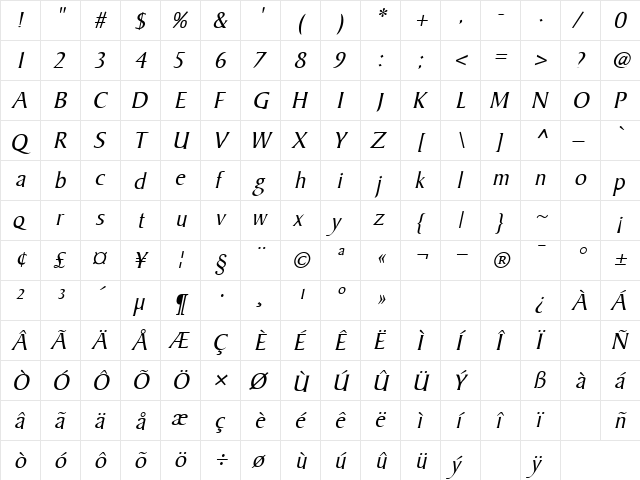
Sadhu Oblique
Design Context for Sadhu Typeface
Sadhu offers clean, dependable letterforms without strong stylistic allegiance, making it a practical choice for designers who need flexibility. The dynamic lean of this cut emphasises speed and emphasis in any layout.
Pro Tip: Try Sadhu for annotation and caption copy alongside an upright companion — the contrast in angle creates a dynamic but ordered typographic system.